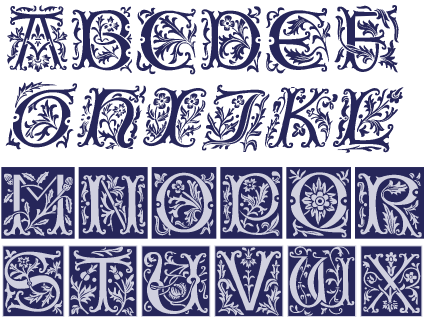
Jivita is an original Sans Serif typeface designed for body text. It has a wide range of OpenType features, and four type styles.
Jivita was updated to version 1.3 with many improvements and new features, including a set of 26 Decorative Drop Capitals, using a different variant for each type style. This can be accessed using the Initial Forms feature (called Word Start Alternates in PagePlus), or by inserting them from the Private Use Area using a character map in applications that don’t support OpenType.
Updated again to ver 1.70 to improve the Initial Forms.
Version 1.72 harmonizes the width of the Initial Forms glyph, which are now colour glyphs.
Version 1.73 switches the foreground background colours of Bold Italic, so now all four styles are noticeably different.
Jivita Version 1.90 completed the Number Forms and Dingbats character sets, added chess pieces to the Ornaments, and a standard ligature for ffj.
With the help of the massive improvements in FontCreator 9.0 I have updated four fonts (14 type styles) today. Mostly, I have used the Visual OpenType Designer to make changes, but on Jivita I used the Code Editor to copy/paste the script for Contextual Ligatures and the Ornament ligatures for chess pieces. The code editor automatically changed the lookup for Ornaments from a single substitution to a ligature substitution when I pasted the code from Pali Regular.
For someone who knows nothing about OpenType scripting, there’s a steep learning curve, but the Visual Designer makes it a lot easier to add and edit OpenType features. Once you have worked out how to create one working script for the Regular type style, it takes very little time to import the script into the other three styles. The kerning pairs will probably need adjusting — that’s all, as long as you have named the glyphs consistently across all four types styles.
Version 2.00 replaces the Initial Forms feature with Stylistic Alternates and the former Stylistic Alternates are now Character Variants.
Some kerning pairs were added.
Version 2.10 fixes the bug with flattening of kerning classes, optimised some complex glyphs, and added a set of smaller, unhinted web versions without most of the symbols or coloured drop caps.
Version 2.20 added proportional figures, fixed some bugs in glyph naming, improved kerning classes, and added more kerning pairs.
Version 2.30 improved the glyphs with ogonek.